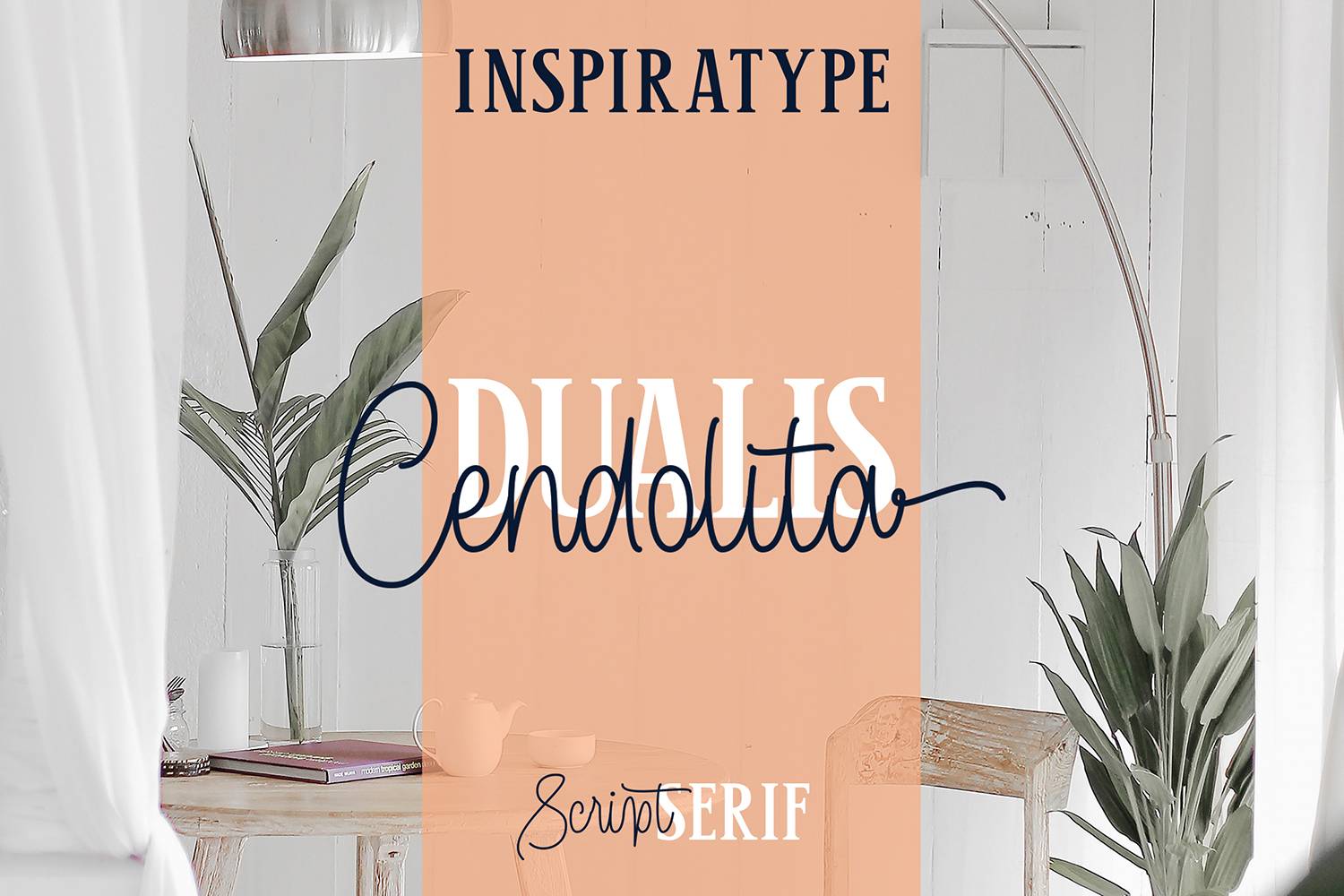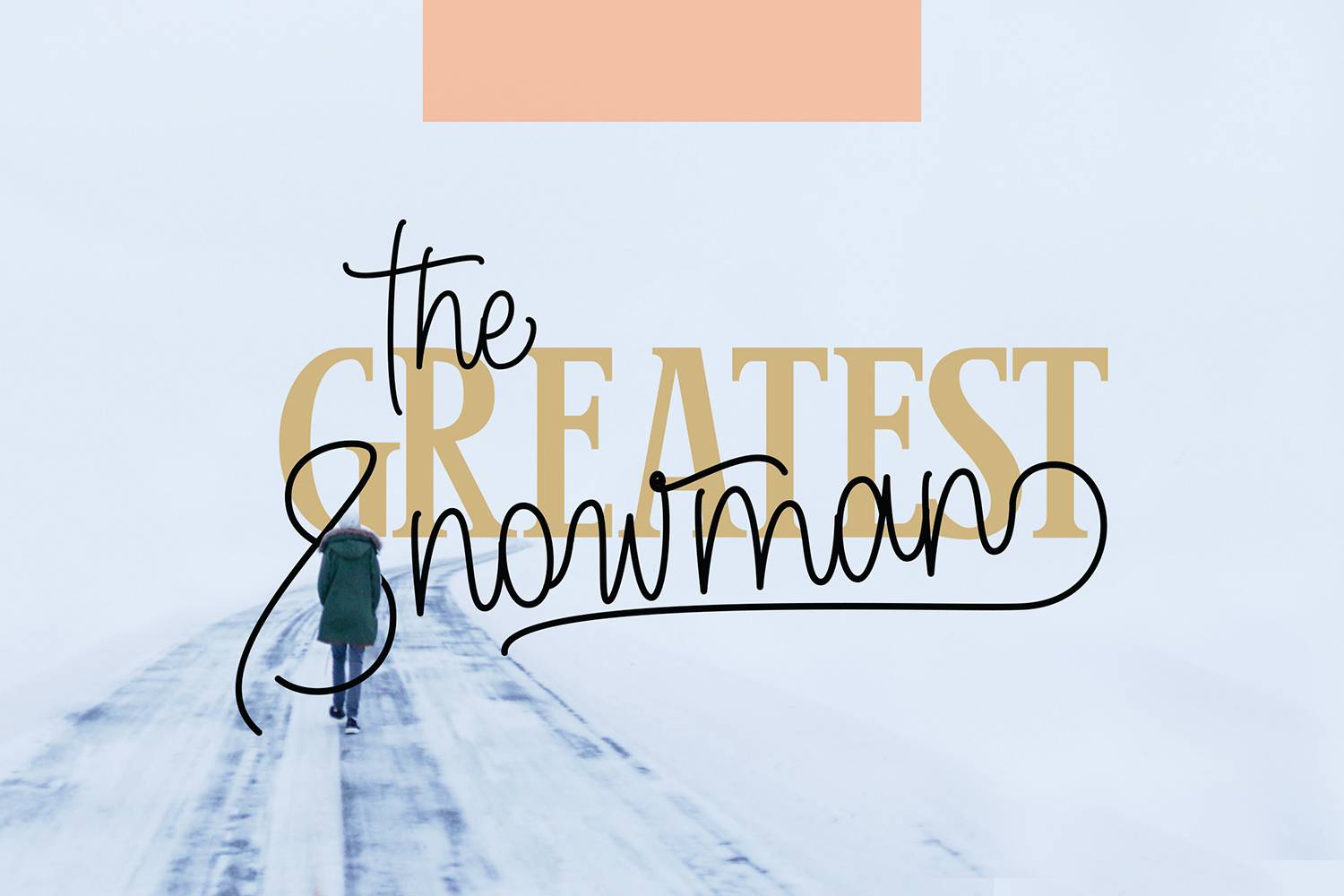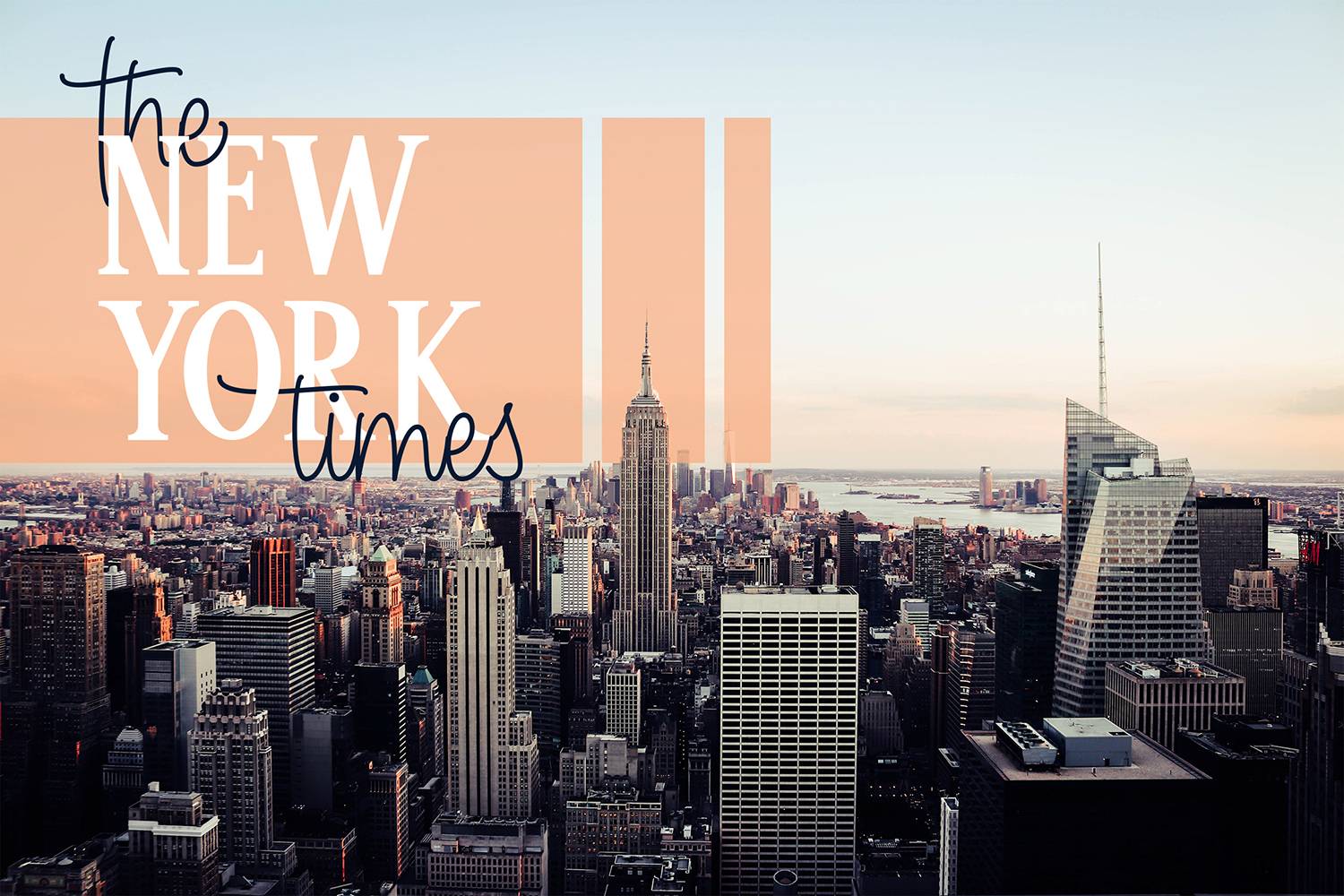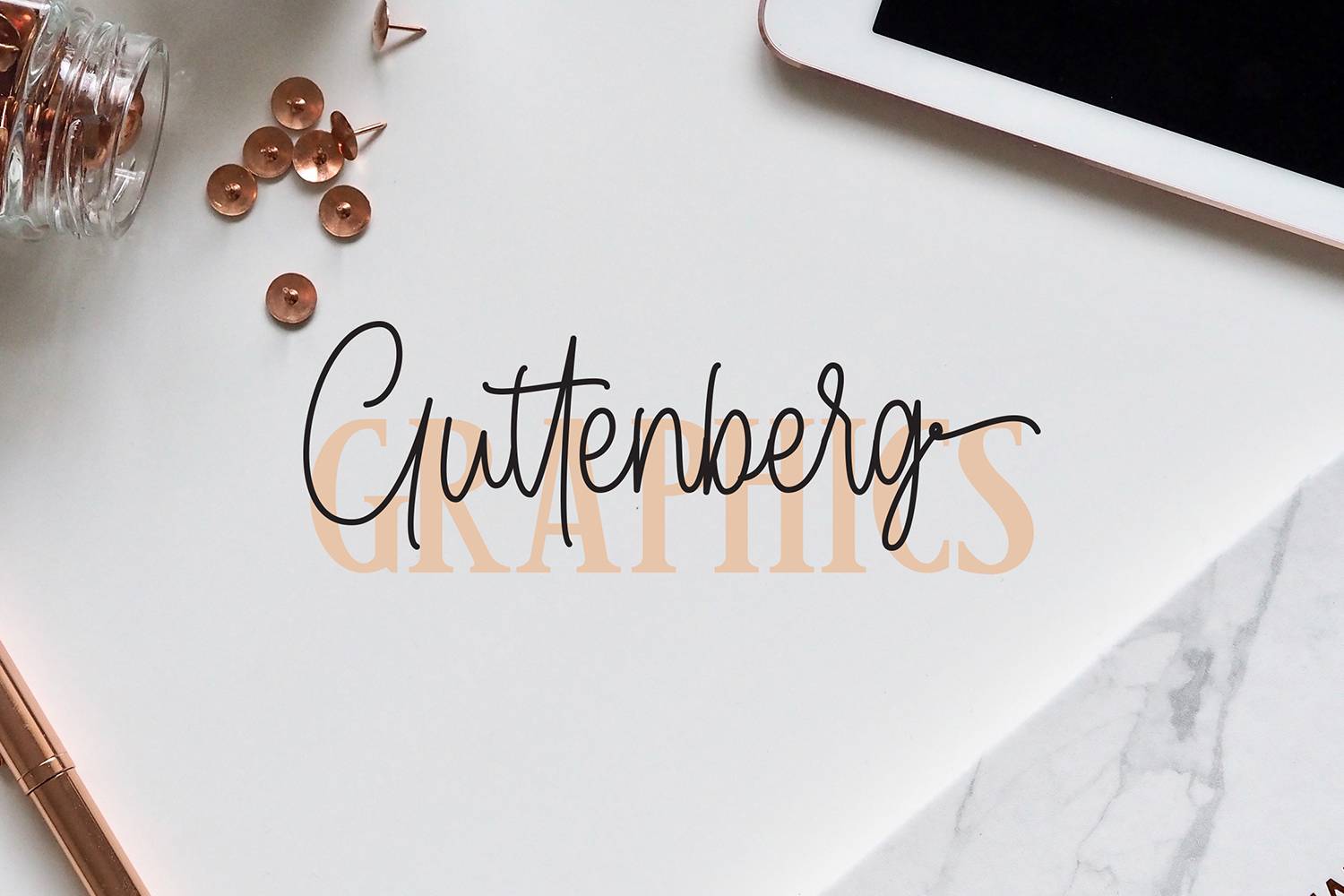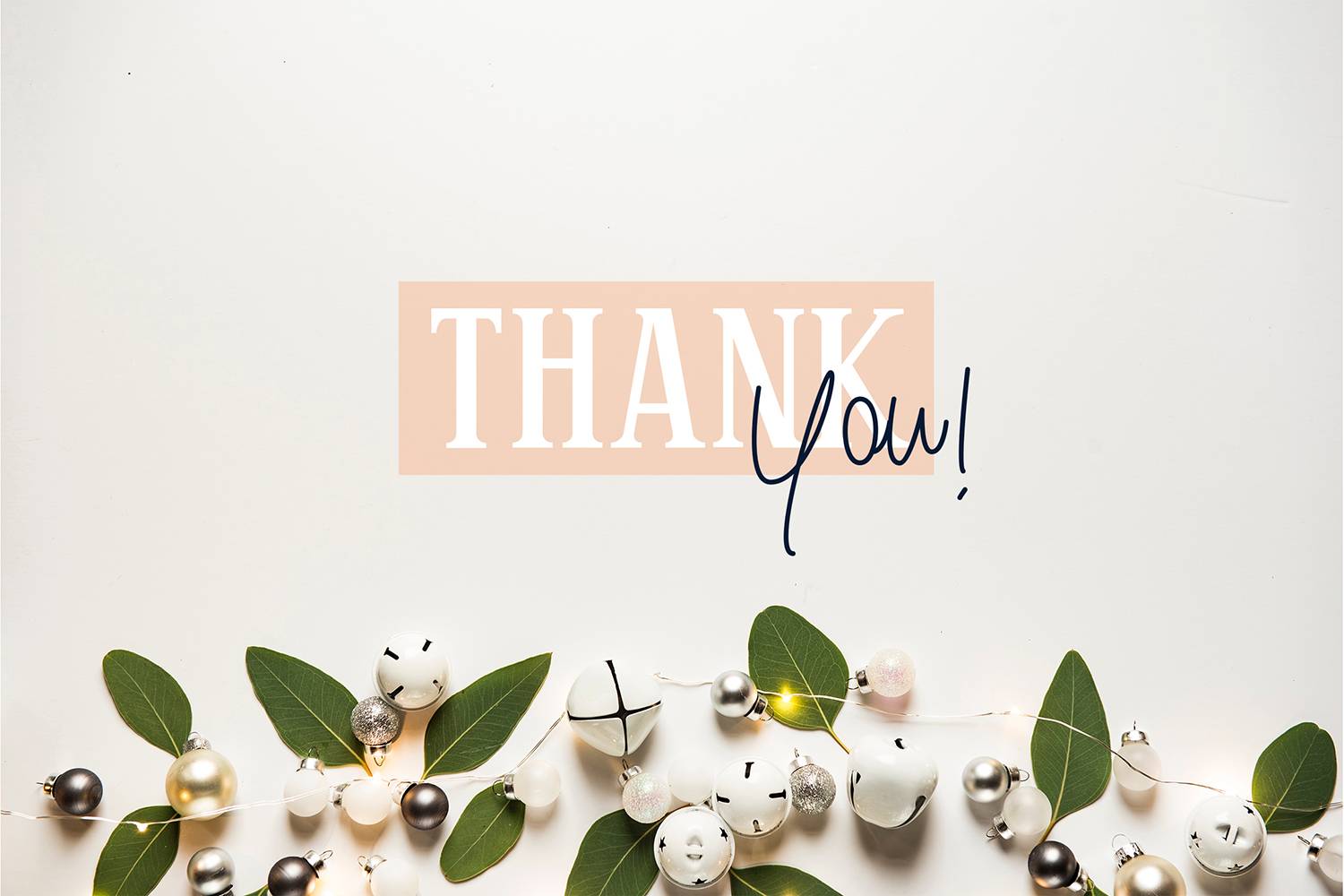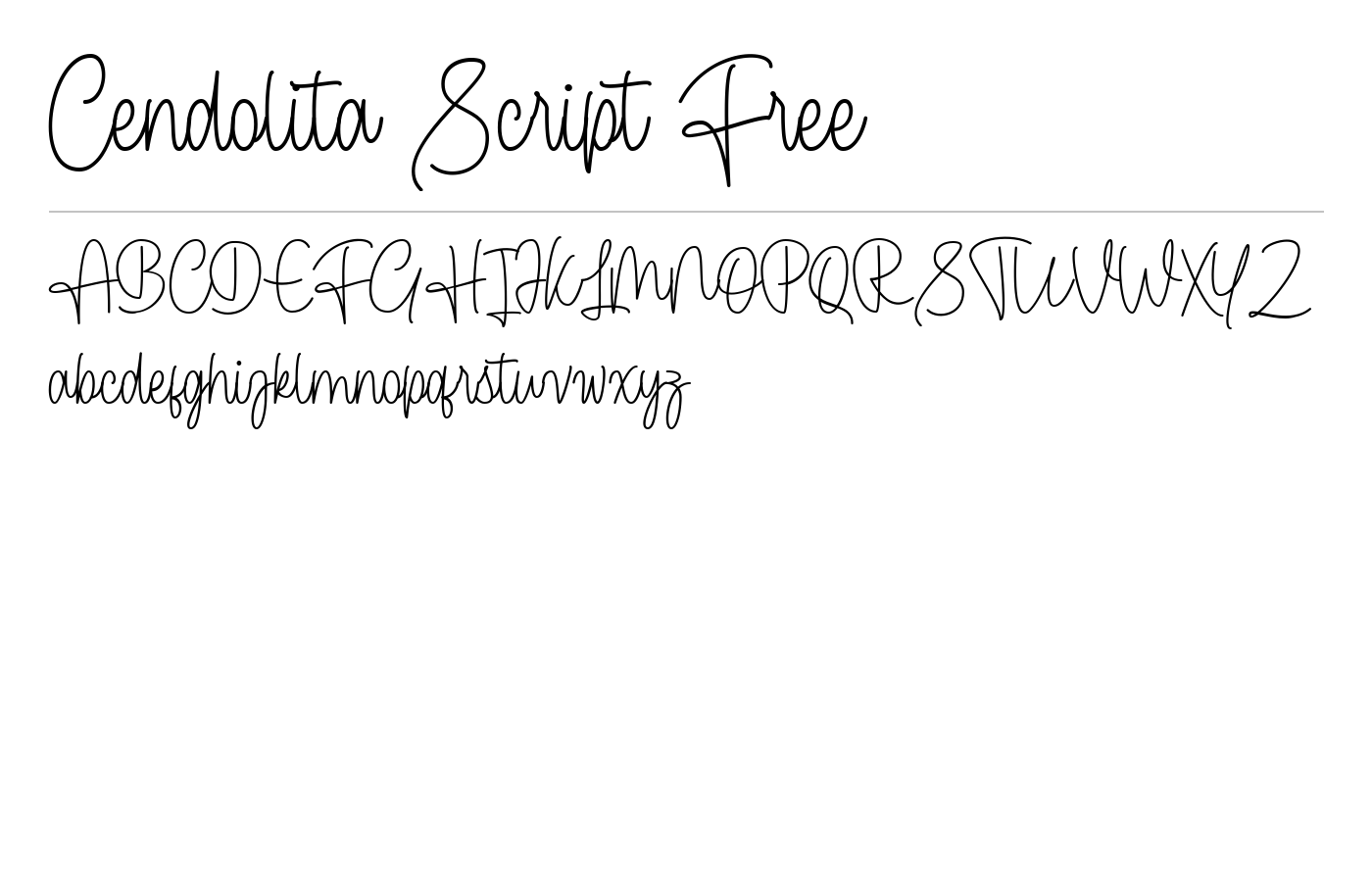
Cendolita is a delicate, handwritten script font with a light, airy feel and playful, tall letterforms that create a personal and whimsical touch. Its smooth, continuous strokes and casual style make it perfect for creative projects, greeting cards, and informal branding where a friendly and approachable mood is desired. This font shines in designs that benefit from a handcrafted, charming look while maintaining legibility.
Cendolita Font
About Cendolita Font
| Font family | Cendolita Font |
| Designer | inspirasign |